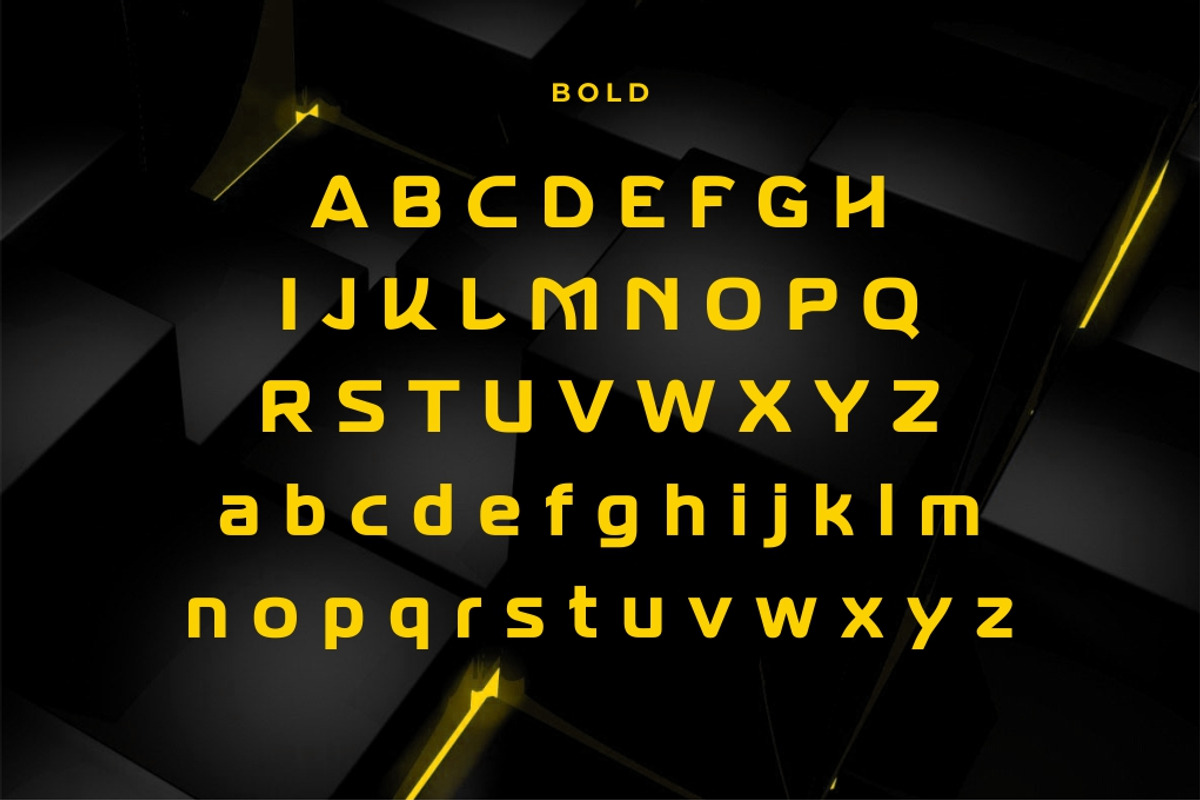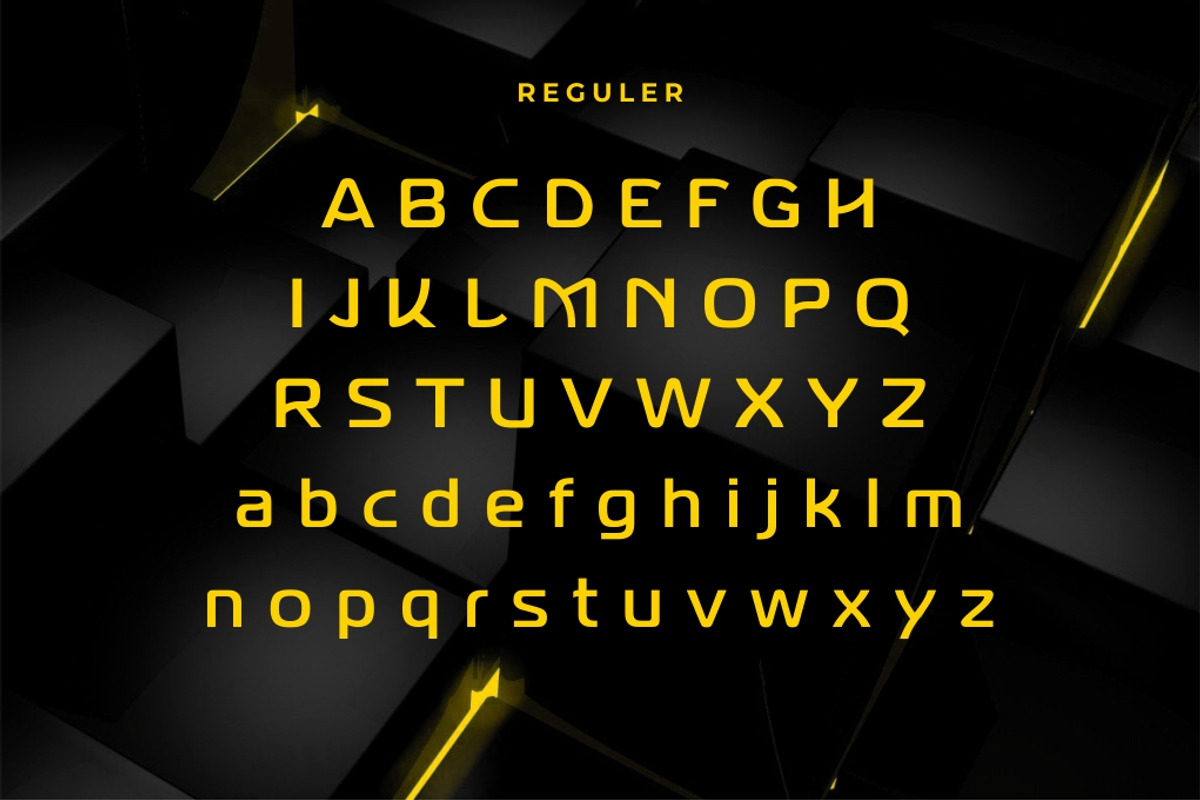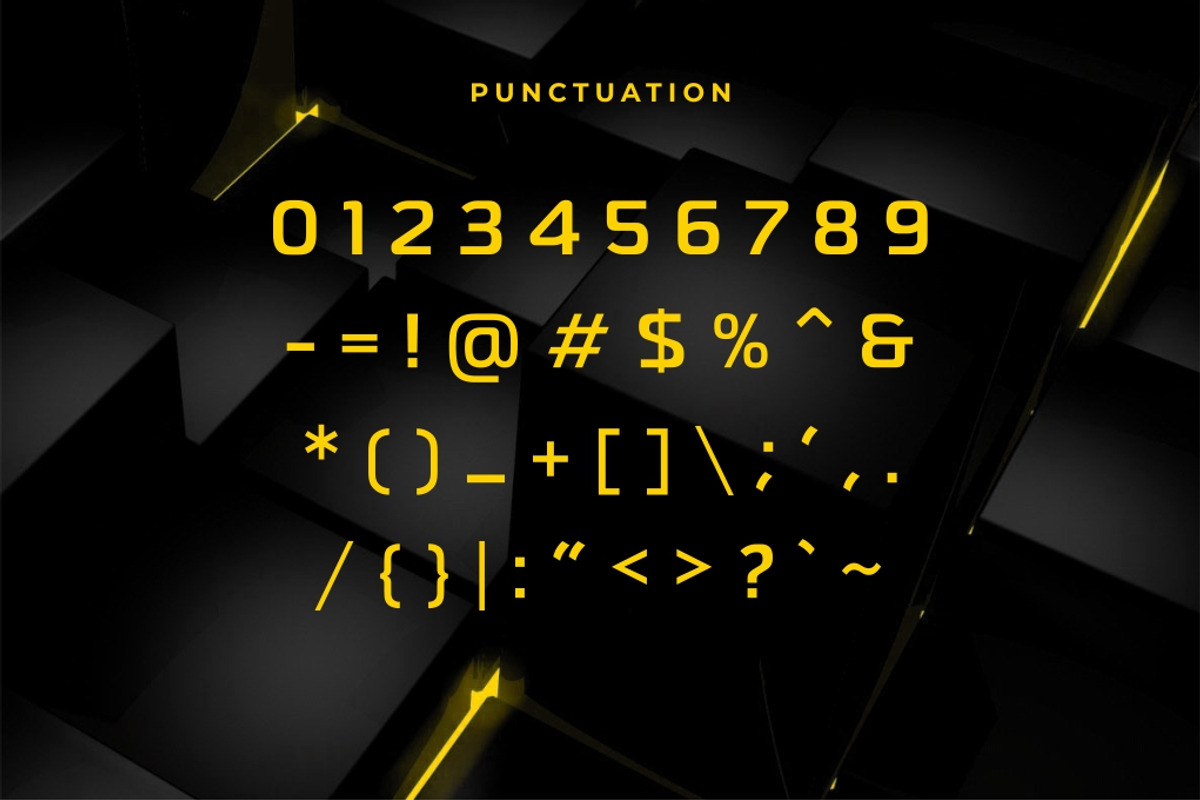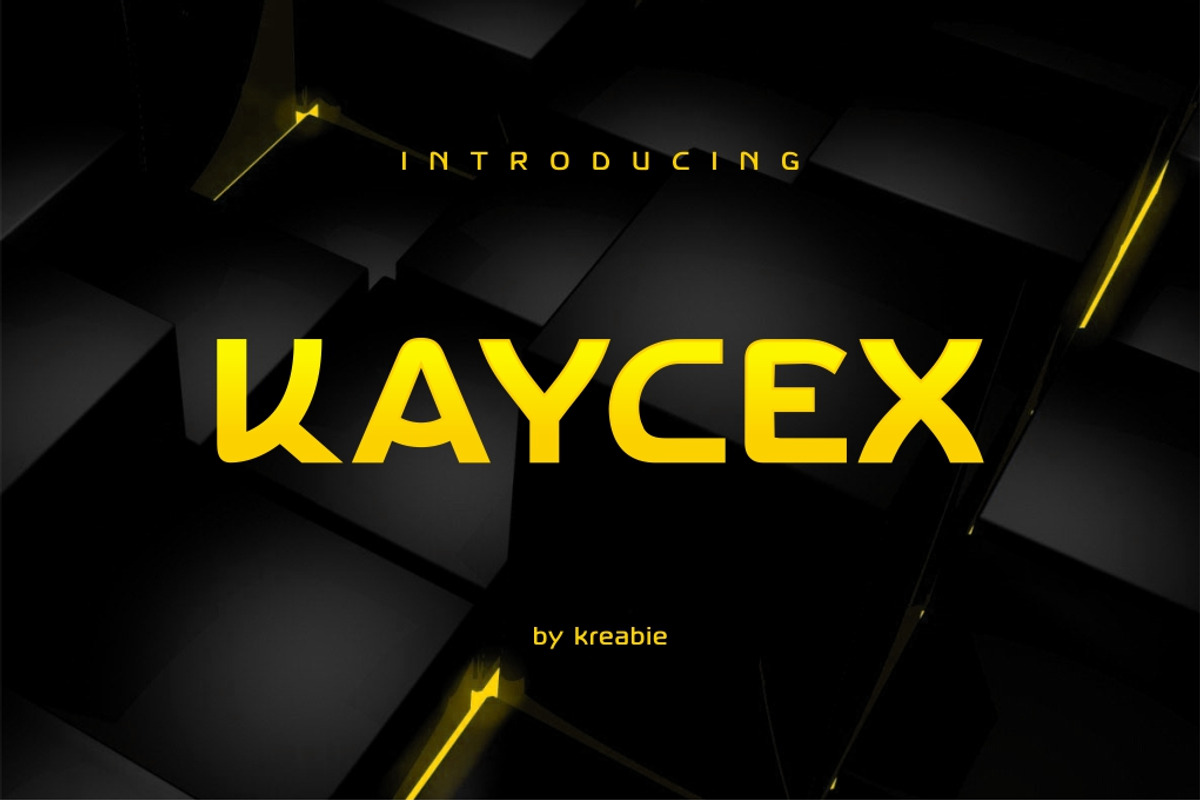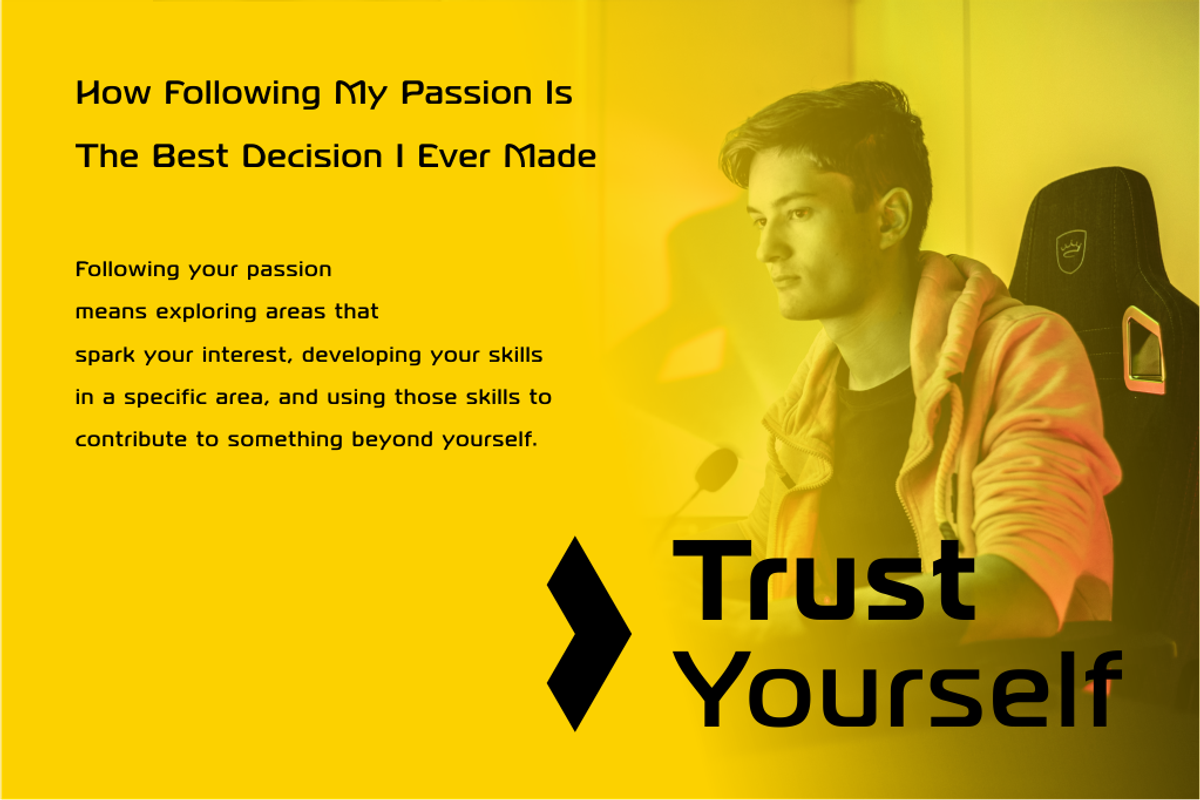
KAYCEX FONT
KAYCEX Font
KAYCEX Its unique style makes it stand out, making it perfect for anyone who wants to make a statement.,The font is suitable to use for many occasion.
- Reguler, Italic & bold
- Basic Latin A-Z & a-z